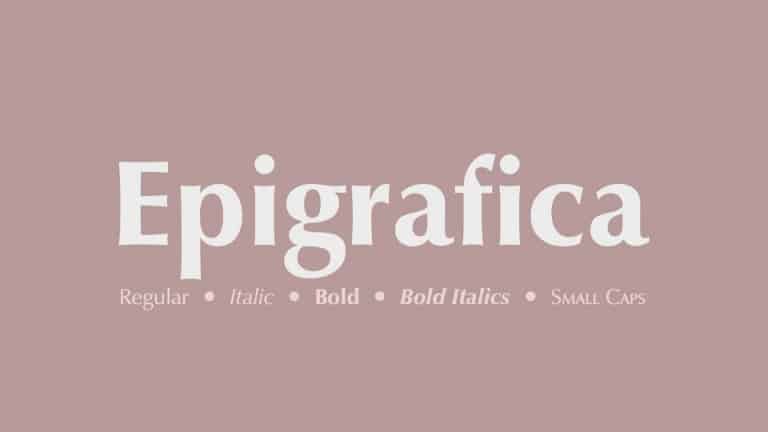
Epigrafica Sans Serif Font
Epigrafica Sans Serif Font is inspired by Ancient Egypt and ancient stone carving inscriptions, the fact that this style was designed with today’s modern sans serif font concept makes it a versatile family that can be used in many different design projects. It’s a sans serif font from the designer Antonis Tsolomitis.
Epigrafica is a beautiful sans serif typeface with simple elegance of its forms and the warmly human touches of its tapering stems. Epigrafica has a similar design with Optima by Hermann Zapf. The family includes Regular and Bold weights with matched Italics and Small Caps style and supports Latin and Greek.